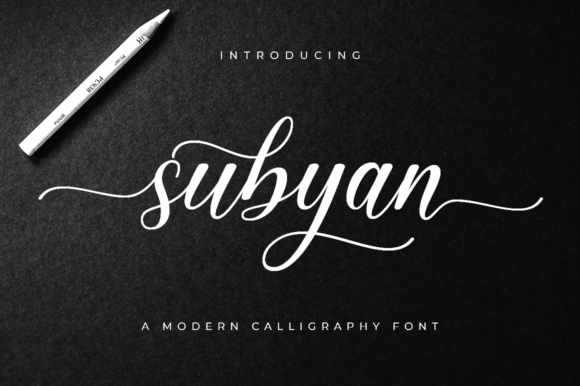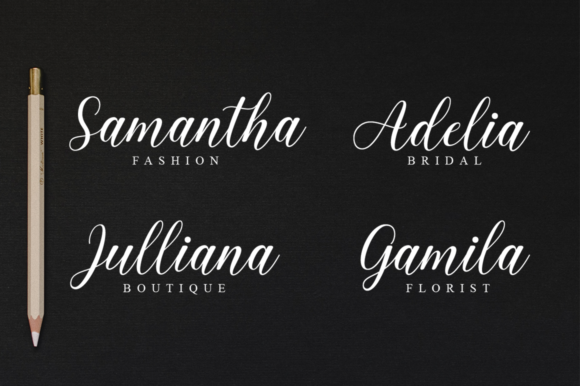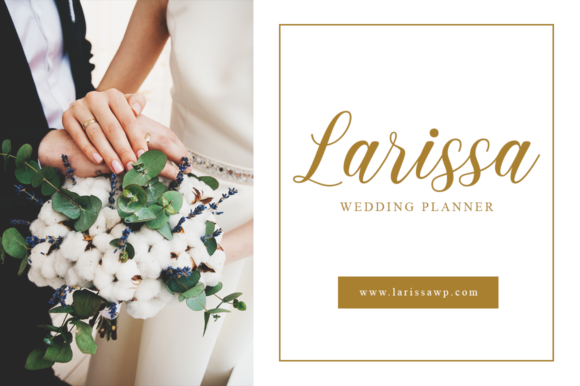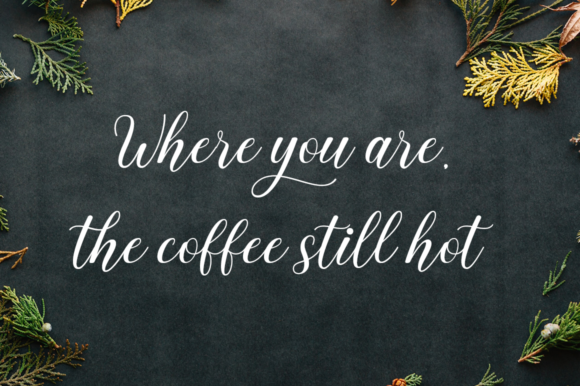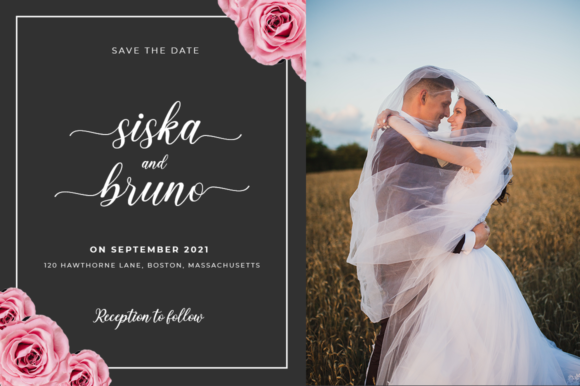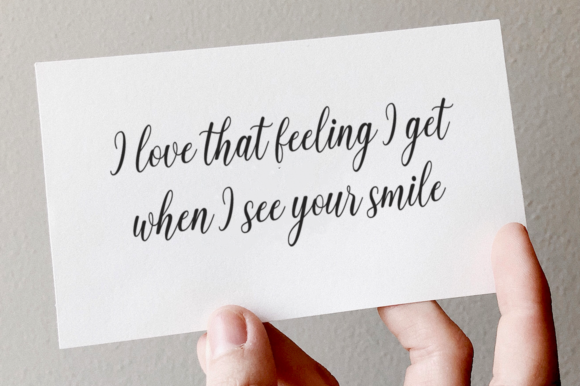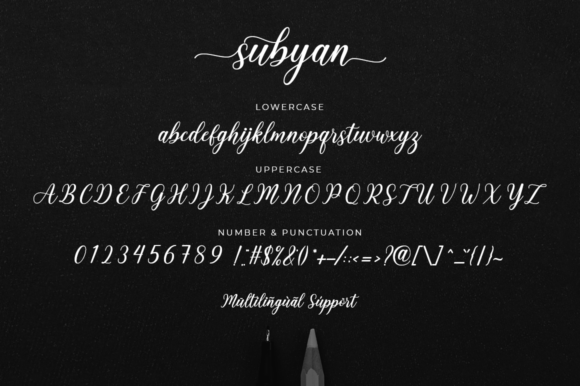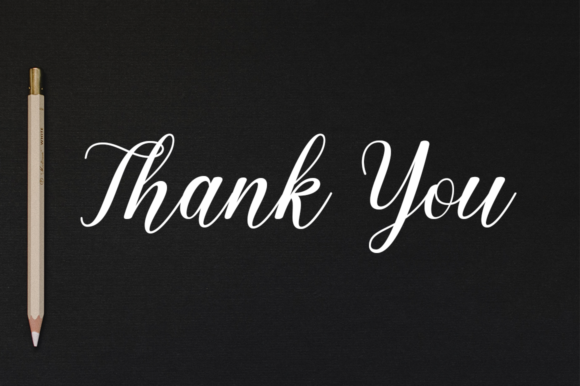
HomeScript FontsSubyan Font Script Fonts Subyan Font FacebookXPinterestWhatsApp Subyan Font Poster 2 Subyan Font Poster 3 Subyan Font Poster 4 Subyan Font Poster 5 Subyan Font Poster 6 Subyan Font Poster 7 Subyan Font Poster 8 About Subyan Font Subyan is a classic and fancy script with a dynamic feel. Fall in love with its unique swashes. DOWNLOAD ON CREATIVE FABRICAThis font is sold and delivered by Creative Fabrica. Font Canyon may earn a commission if you buy through this link. People also explored Mountain Font Loving You Font Sweeta Font Rumini Namamu Font Mostly Floral Font Skuery Arlistan Font Easter Eggs Font Wireless Font 364 0 TagsSubyan Font Previous articleFrisha FontNext articleMarleigh Font LEAVE A REPLY Cancel reply Comment: Please enter your comment! Name:* Please enter your name here Email:* You have entered an incorrect email address! Please enter your email address here Website: Save my name, email, and website in this browser for the next time I comment. Personal Use Free Starry Cakes Personal Use Free Read more about this font Zelega Zenega Personal Use Free Read more about this font Sunflower Personal Use Free Read more about this font Eloquence Personal Use Free Read more about this font BLOG Transform Your Website: Elevate Your Typography with 7 Best Web Font Generators Are you ready to transform your website's typography from ordinary to extraordinary? Great! Today, we're diving into the world of web font generators, which... To increase your work productivity, choose the most readable fonts. Free Fonts Risk: Why Free Fonts Can Be Dangerous for Designers How to Install and Use Fonts on Windows, macOS, and Web Projects